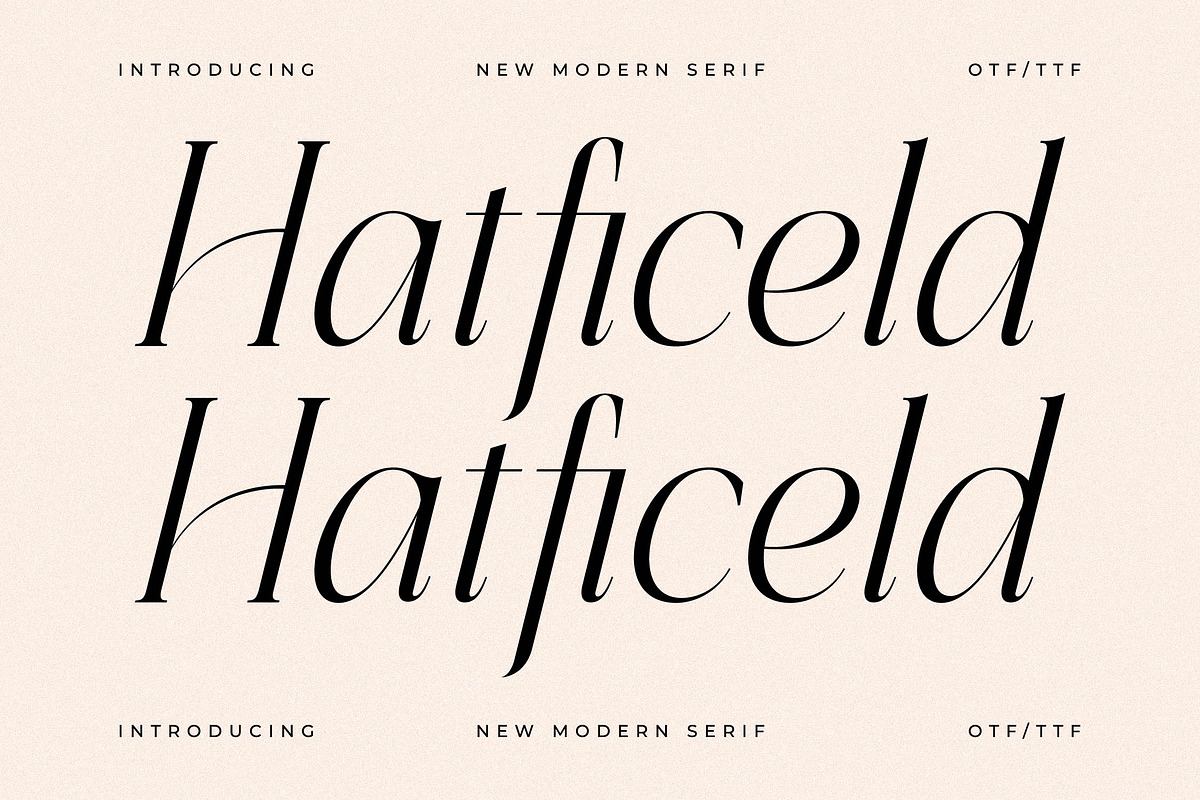
Hatfield New Font Free Download is a modern serif typeface that blends contemporary design with timeless elegance. With its clean lines, sharp contrast, and refined details, Hatfield New is perfect for branding, editorial design, luxury packaging, logos, and sophisticated web content.
The font features uppercase and lowercase letters, numerals, punctuation, and stylistic alternates, allowing for versatility in both print and digital applications. Its high-contrast serifs and well-balanced structure make it suitable for both headlines and body text, delivering both readability and elegance.
Whether you're working on a modern brand identity, an upscale editorial project, or a minimalist website design, Hatfield New Font Free Download offers a refined, modern approach to classic serif typography. Feel free to test it in personal or mockup projects, and don’t forget to secure the appropriate license for commercial use. Add timeless sophistication to your designs with this beautiful modern serif font.